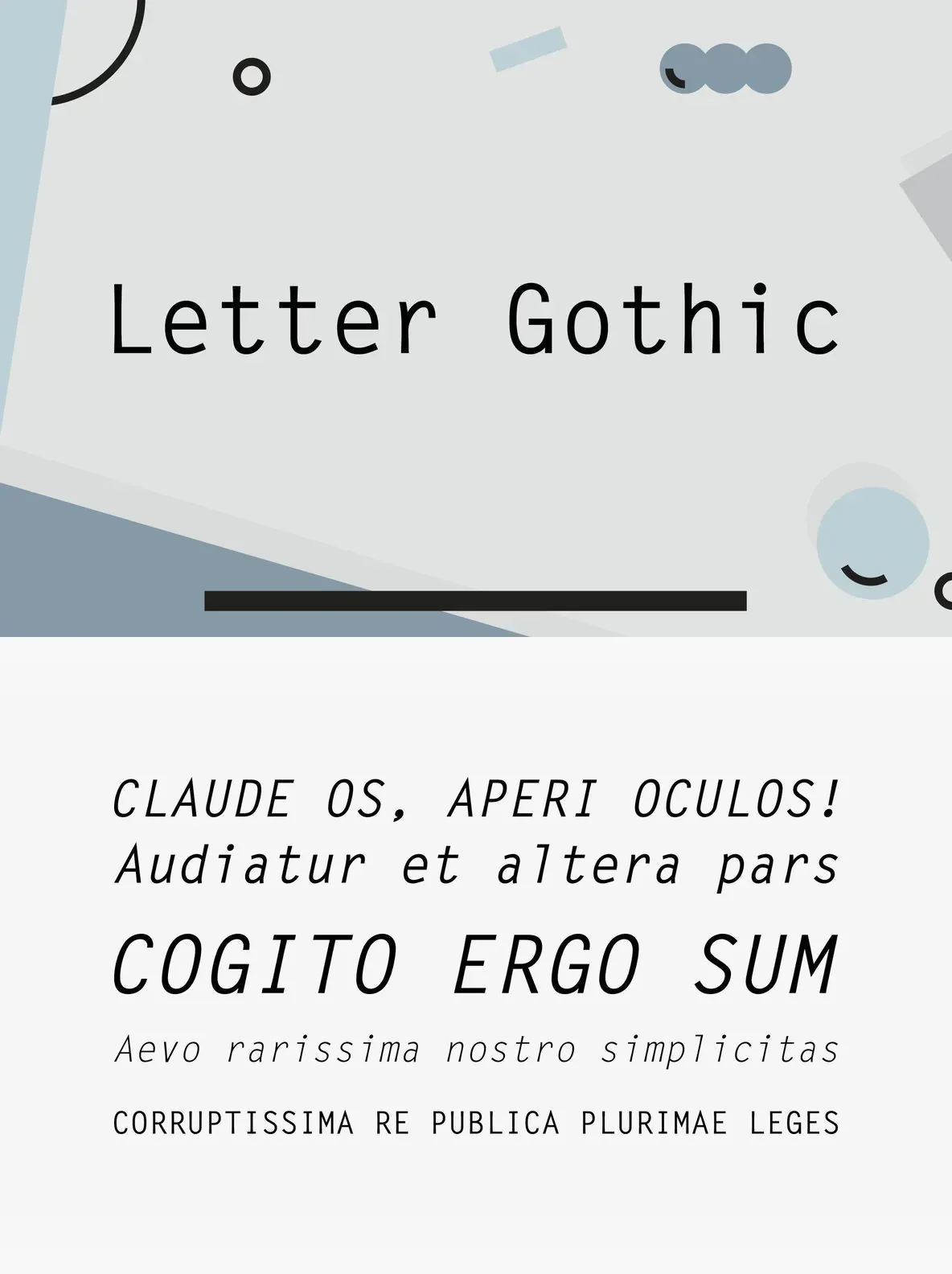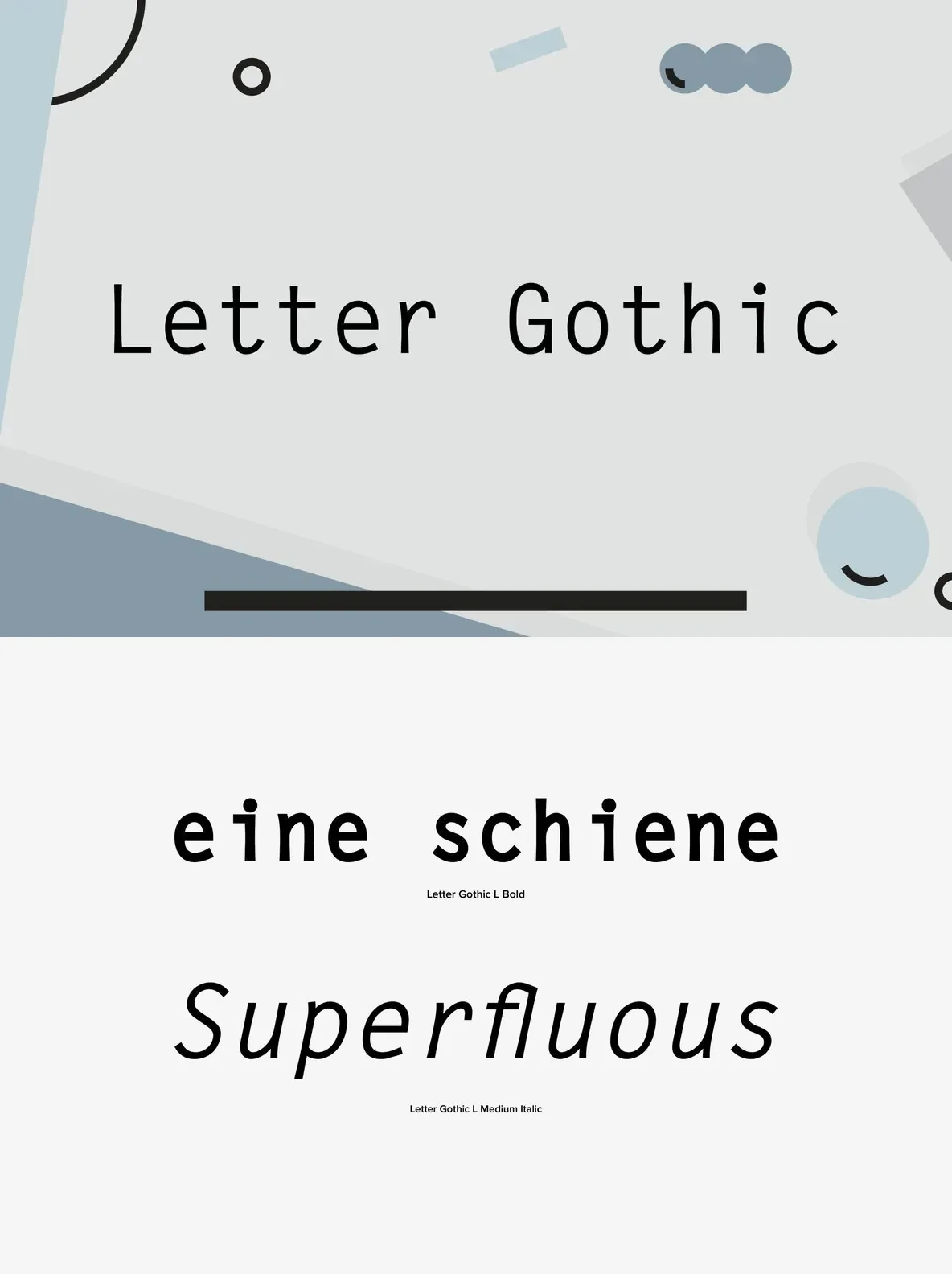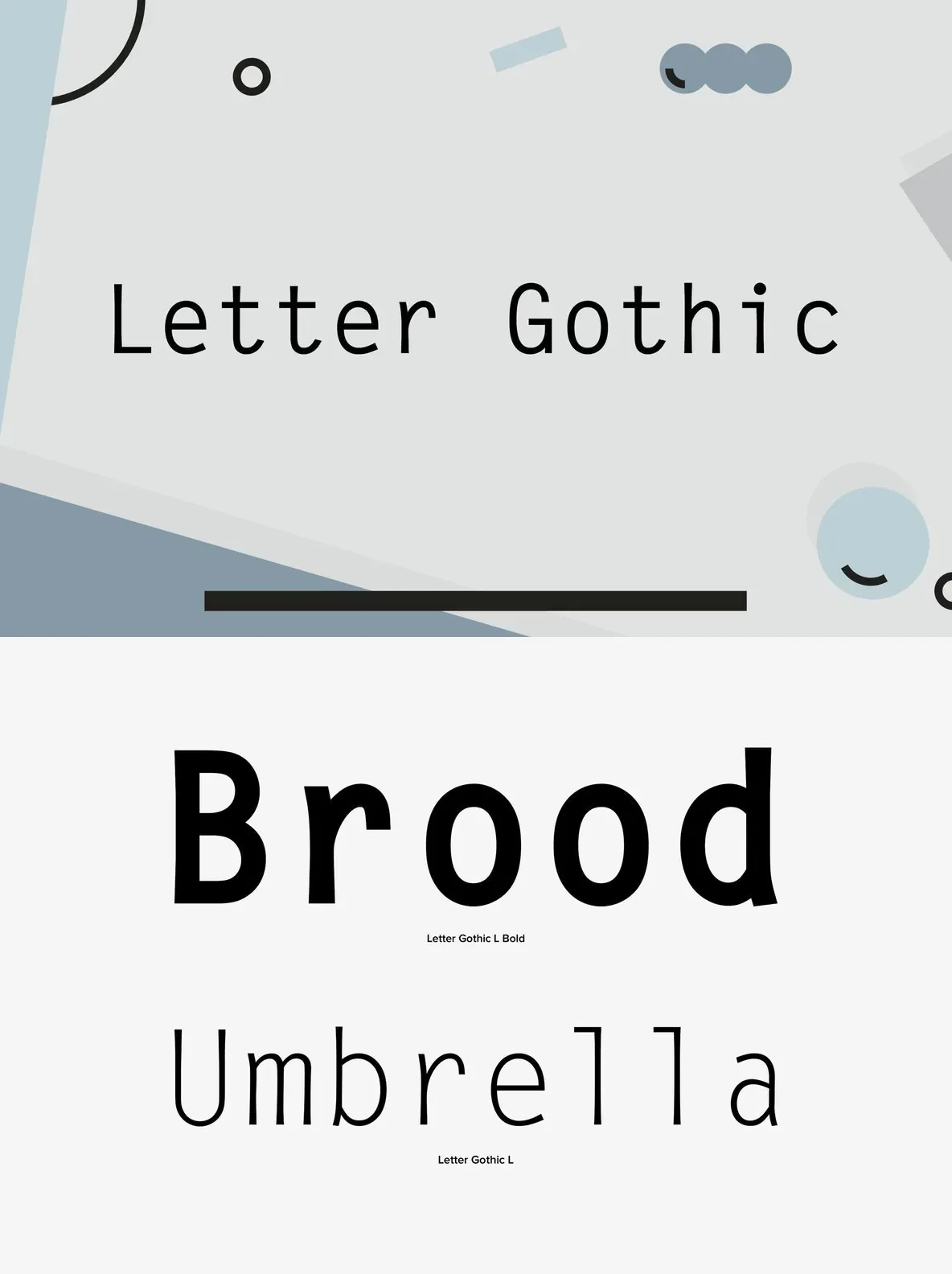
Letter Gothic Monospaced Typeface
Letter Gothic is a refined monospaced sans-serif typeface with roots in IBM’s legacy of precision and clarity. Characterized by its clean lines and balanced letterforms, this font offers a minimalist aesthetic perfectly suited for technical and creative work alike.
Designed in 1993 by Roger Robertson at URW Studio, Letter Gothic brings a modern sensibility to traditional monospaced design. Its uniform spacing and straightforward geometry make it ideal for coding, editorial layouts, and contemporary branding that demands both utility and style.
Minimalist, monospaced letterforms for clear readability
Sleek sans-serif style inspired by classic IBM design
Suitable for both digital and print environments
Consistent alignment, perfect for coding and tabular data